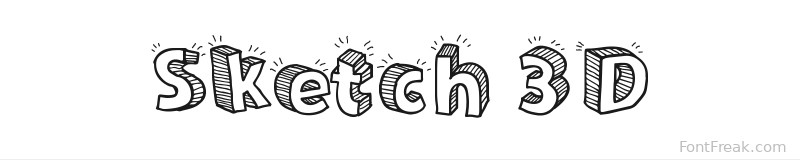
Sketch 3D
About Sketch 3D
The Sketch 3D font by Galdino Otten is a unique display typeface that captures the essence of hand-drawn artistry with a playful twist. This font, released in 2015 under a freeware license, exudes a charming, whimsical quality that can elevate a variety of design projects. Its visual characteristics are defined by a bold stroke weight and a distinct three-dimensional effect, which gives it an appealing depth. The uneven, sketch-like lines add a casual yet artistic feel, making it a perfect choice for designs that require a personal touch.
Sketch 3D is particularly well-suited for creative applications such as children's book covers, where its playful nature can engage young readers. It also shines in crafting vibrant movie posters that demand attention, as well as in designing lively restaurant menus that entice customers with a fun atmosphere. Furthermore, this font can be an excellent choice for invitations to casual parties or events, where a relaxed vibe is desired. The target audience includes graphic designers, small business owners, and content creators looking to infuse their work with a distinctive, artistic flair.
What sets the Sketch 3D font apart is its ability to blend a handcrafted feel with modern design sensibilities. The three-dimensional appearance adds an element of intrigue, while the sketchy quality resonates with audiences seeking authenticity and creativity. Whether you are working on a playful brand identity or a unique marketing piece, the Sketch 3D font free download offers a versatile option that stands out in any project. Its charming aesthetic is sure to leave a lasting impression, making it a valuable addition to any designer's toolkit.